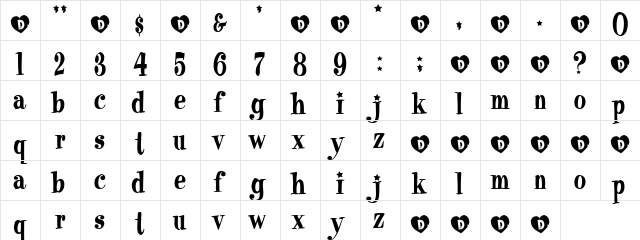
Fuzzbox Regular
Design Context for Fuzzbox Typeface
Fuzzbox is a composed and adaptable typeface that performs quietly and consistently across a wide range of design contexts.